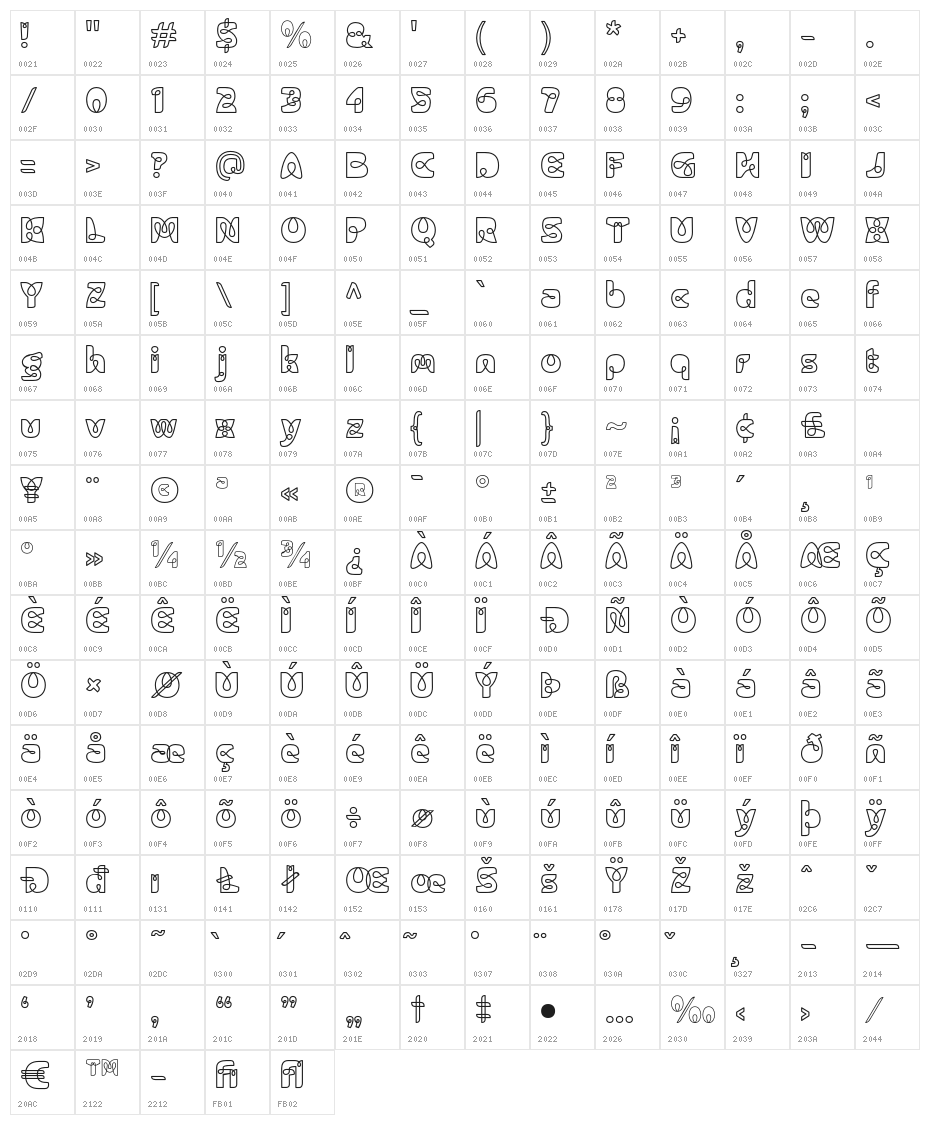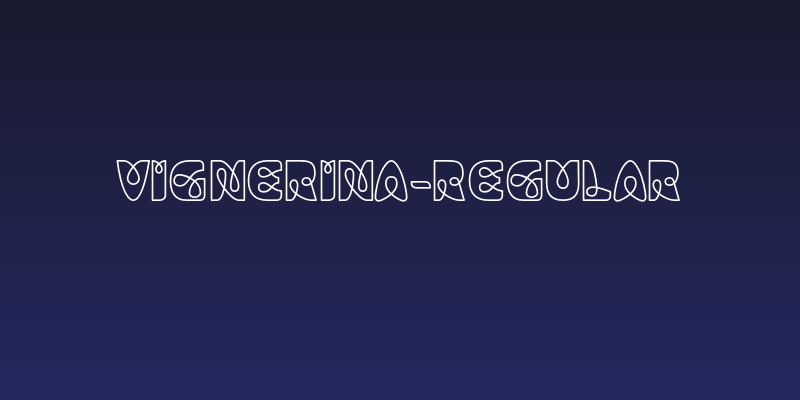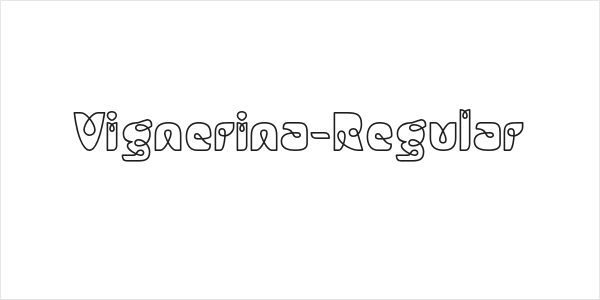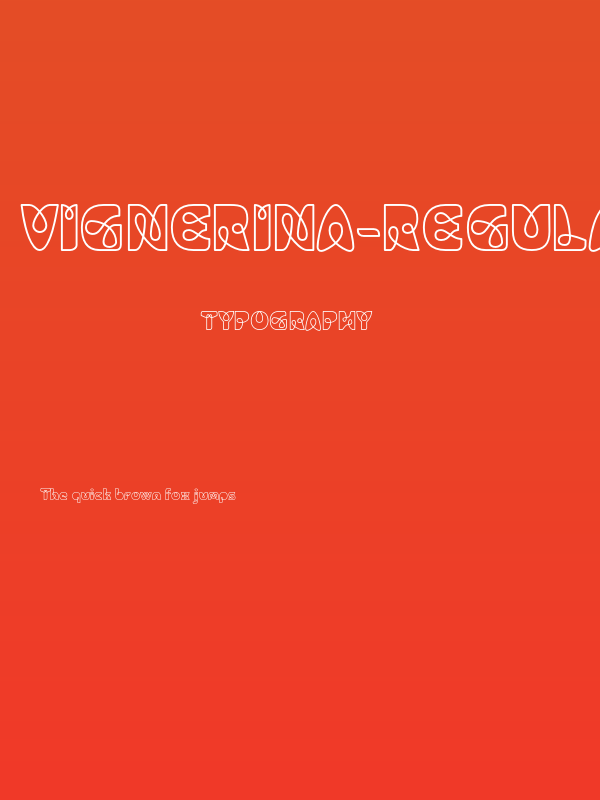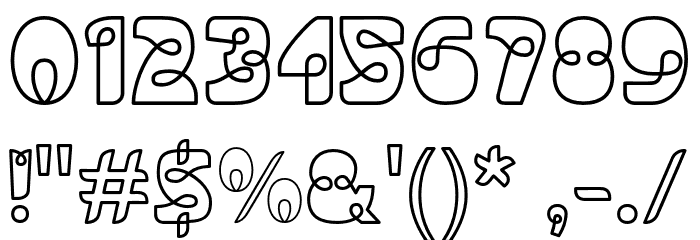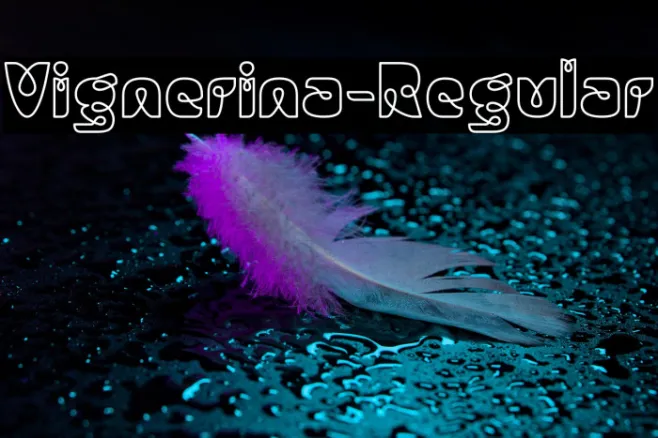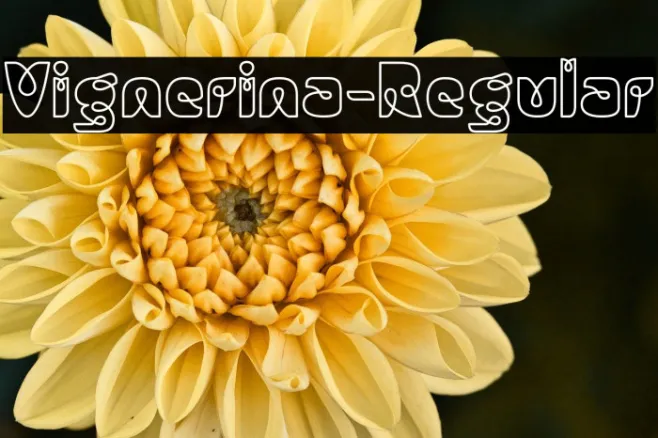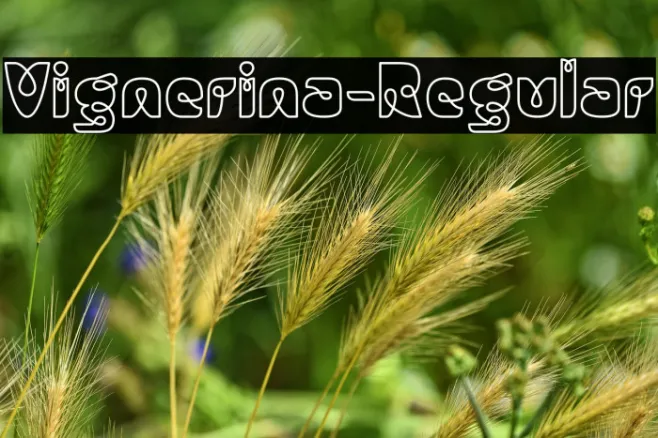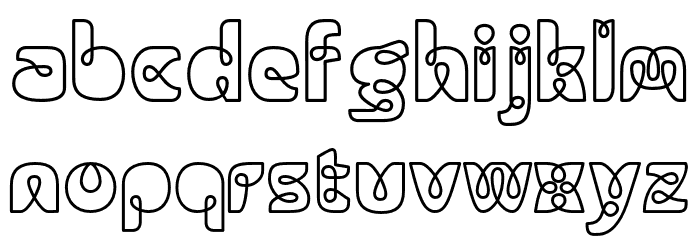
Vignerina-Regular Font
Vignerina-Regular Description
This font features a unique and playful design with hollow, outlined characters. Each letter is crafted with a continuous line that forms intricate shapes, giving it a whimsical and artistic appearance. The uppercase and lowercase letters maintain a consistent style, with rounded edges and a bold presence. Numbers and special characters follow the same design principles, ensuring uniformity across all glyphs. This font stands out due to its decorative nature, making it ideal for creative projects that require a touch of flair and originality.
| Proposed Projects | Ideal for posters, invitations, children's books, and creative branding projects. |